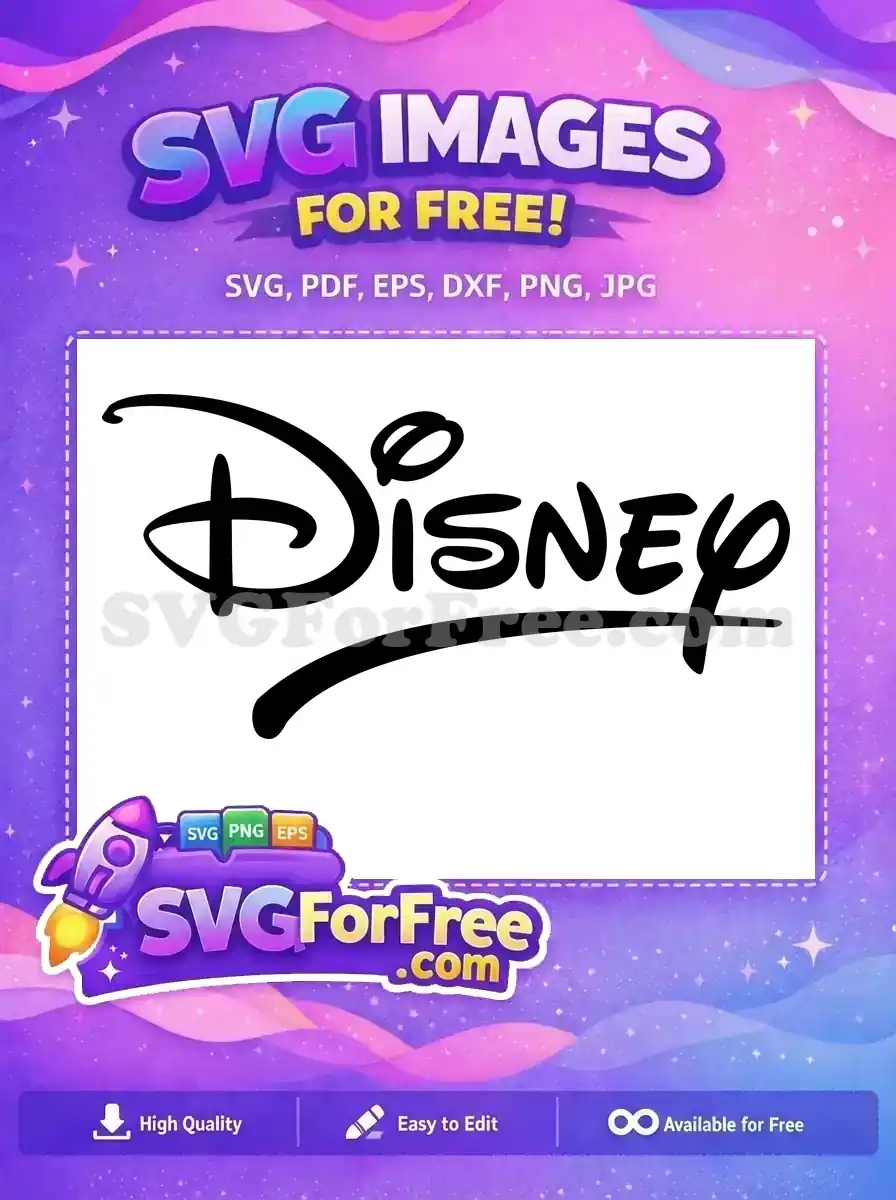
The iconic, classic Disney logo in its signature script font, available as a free vector graphic file.
Free Disney Font Free Black Bold Disney Free SVG